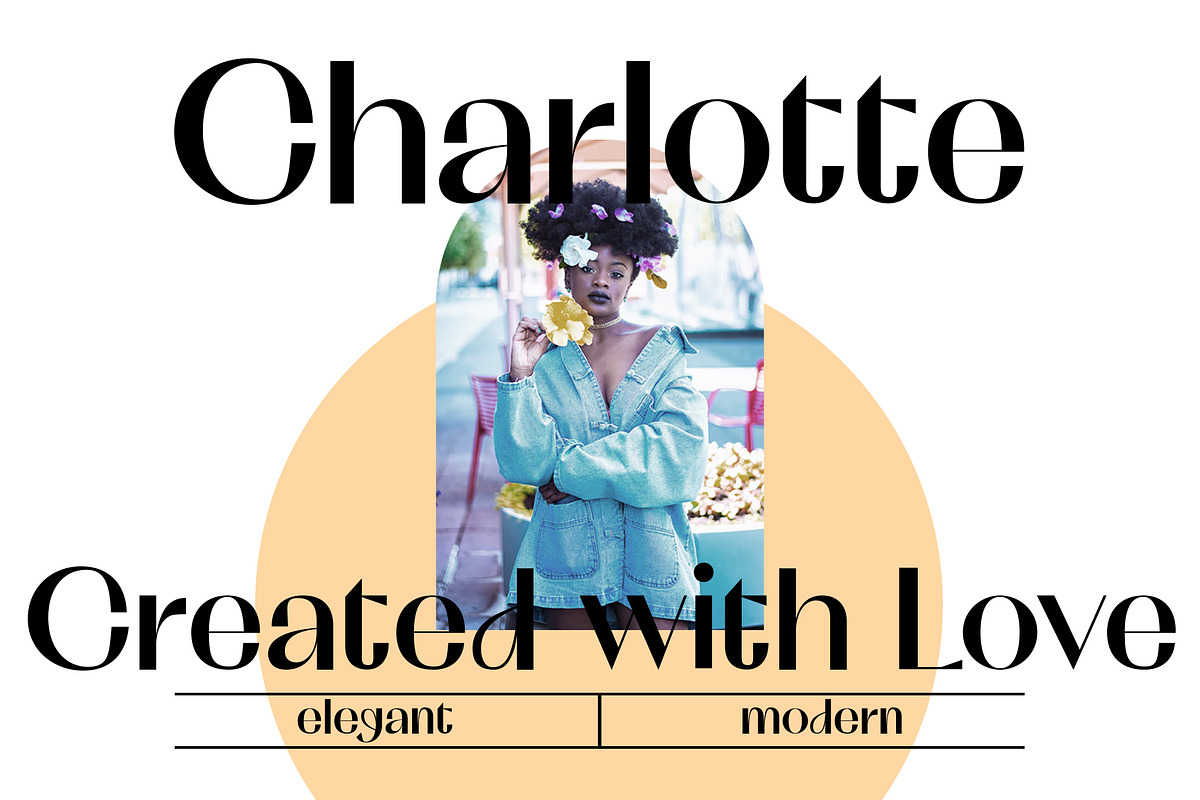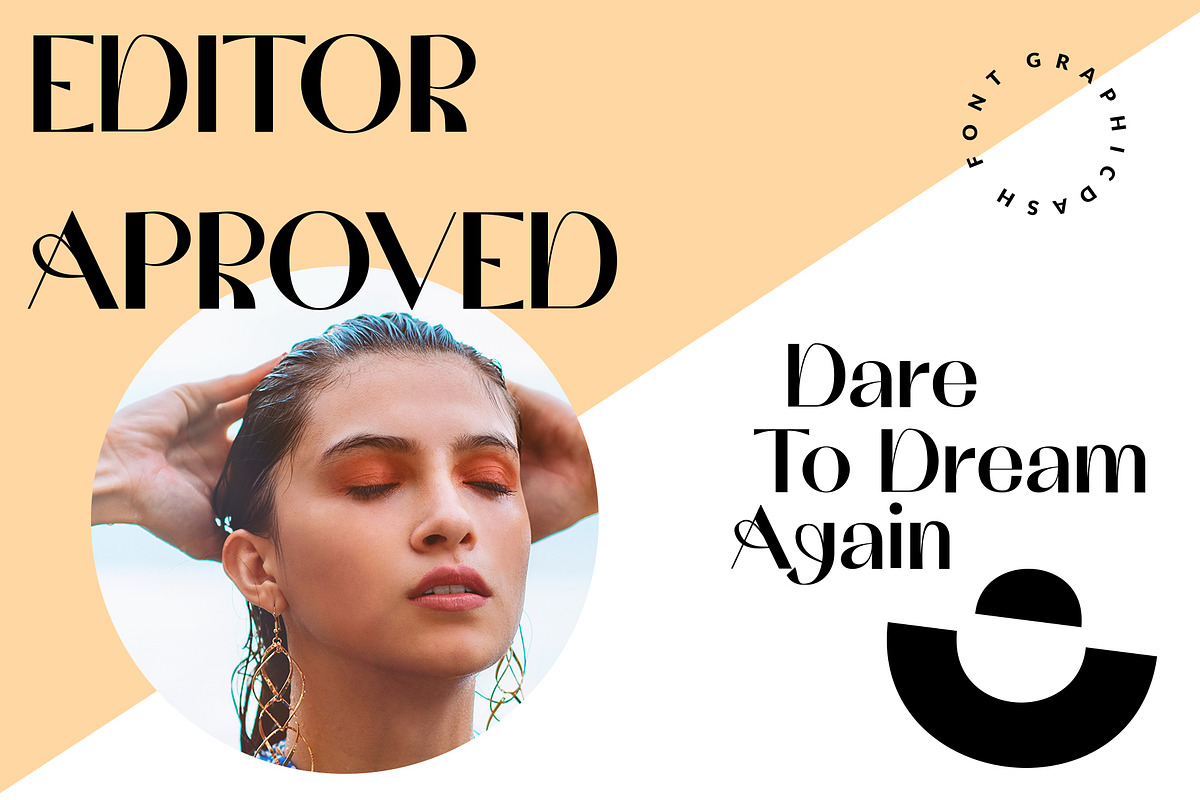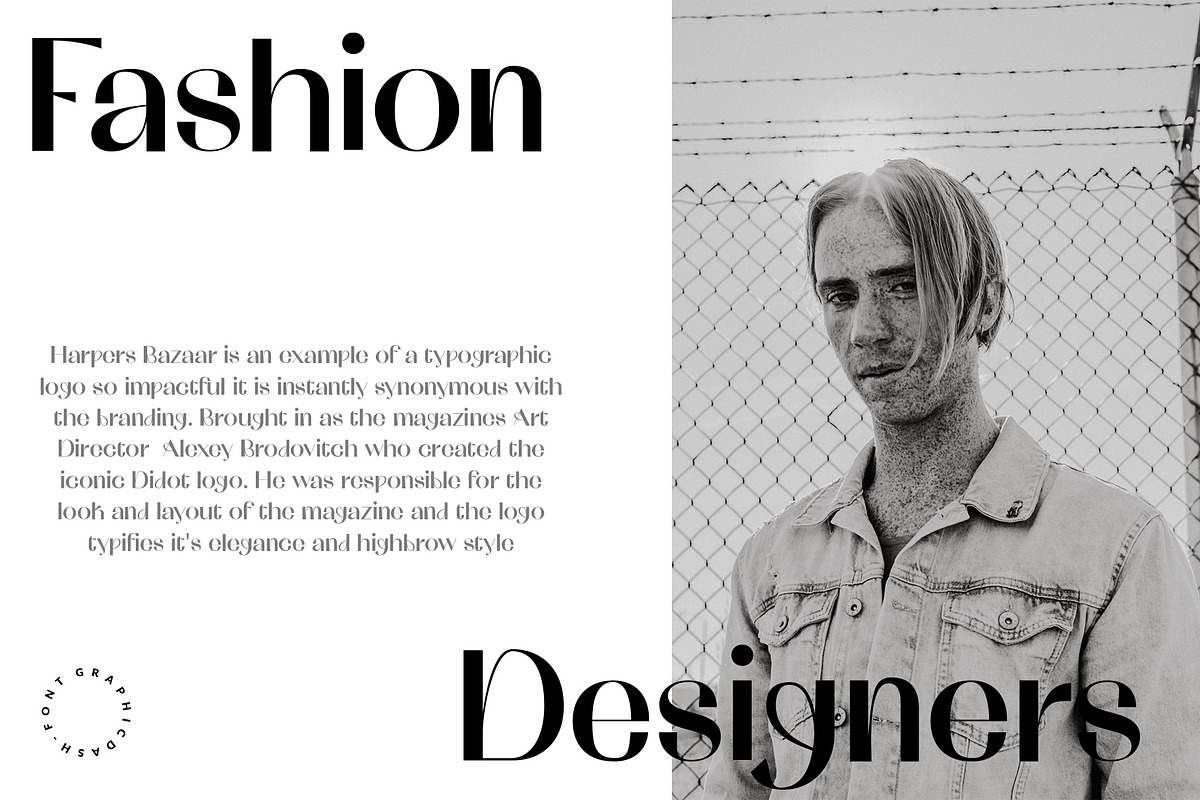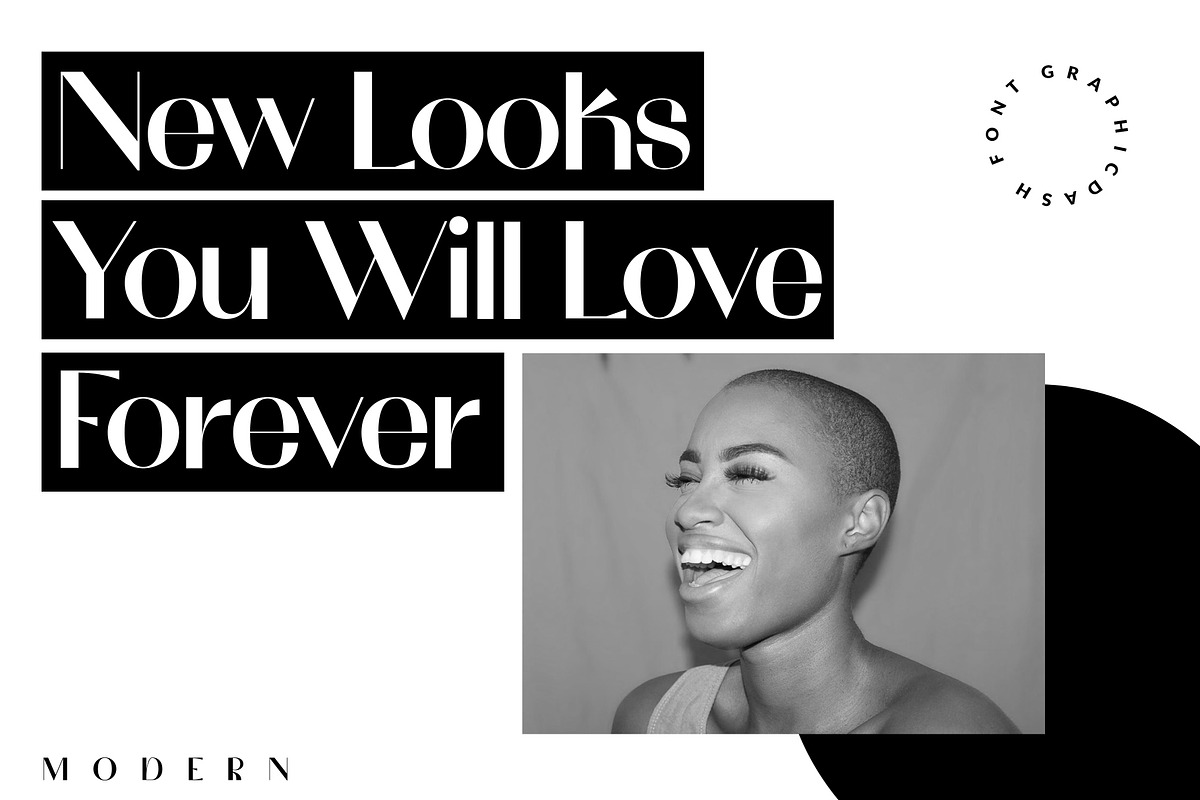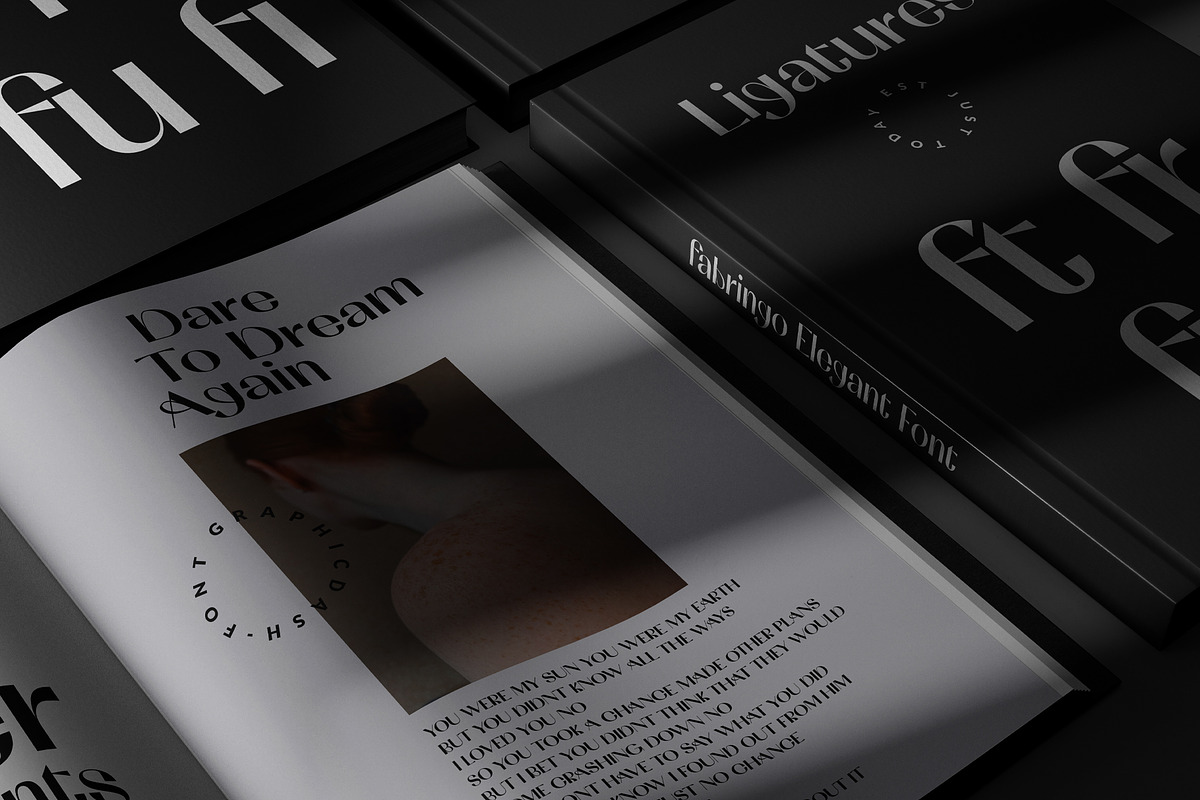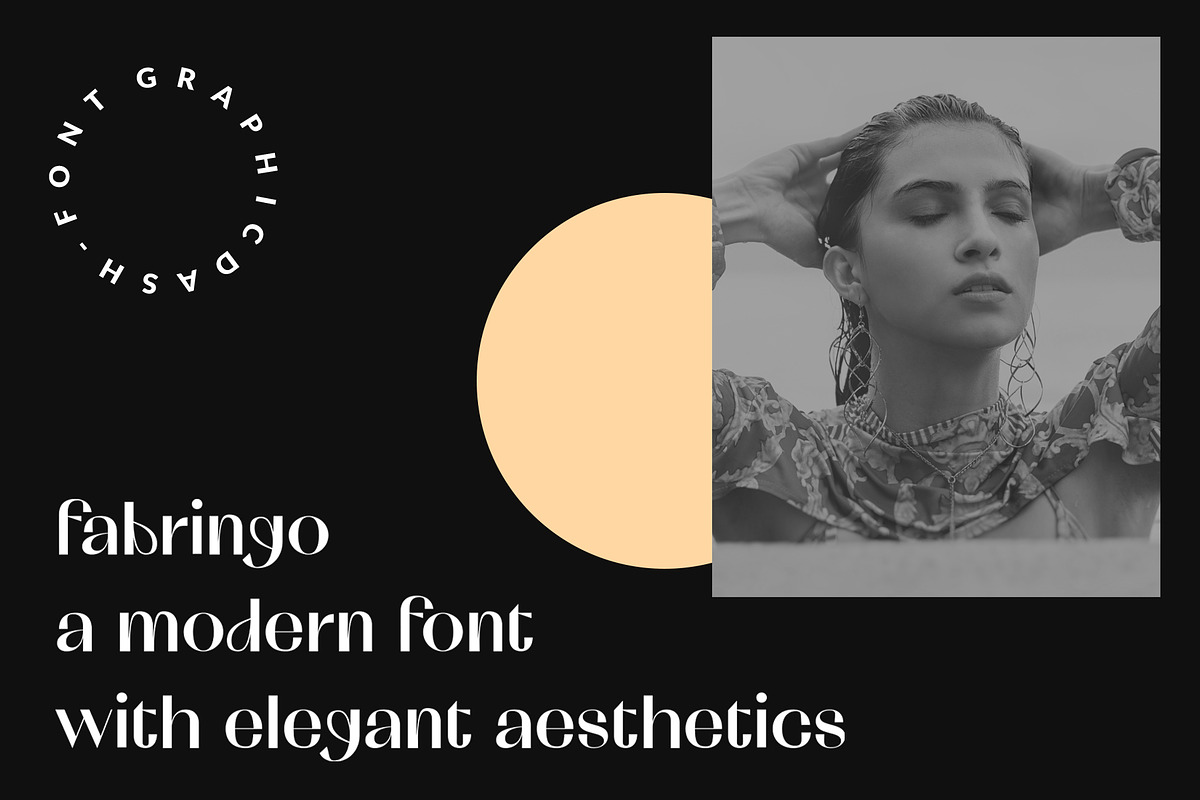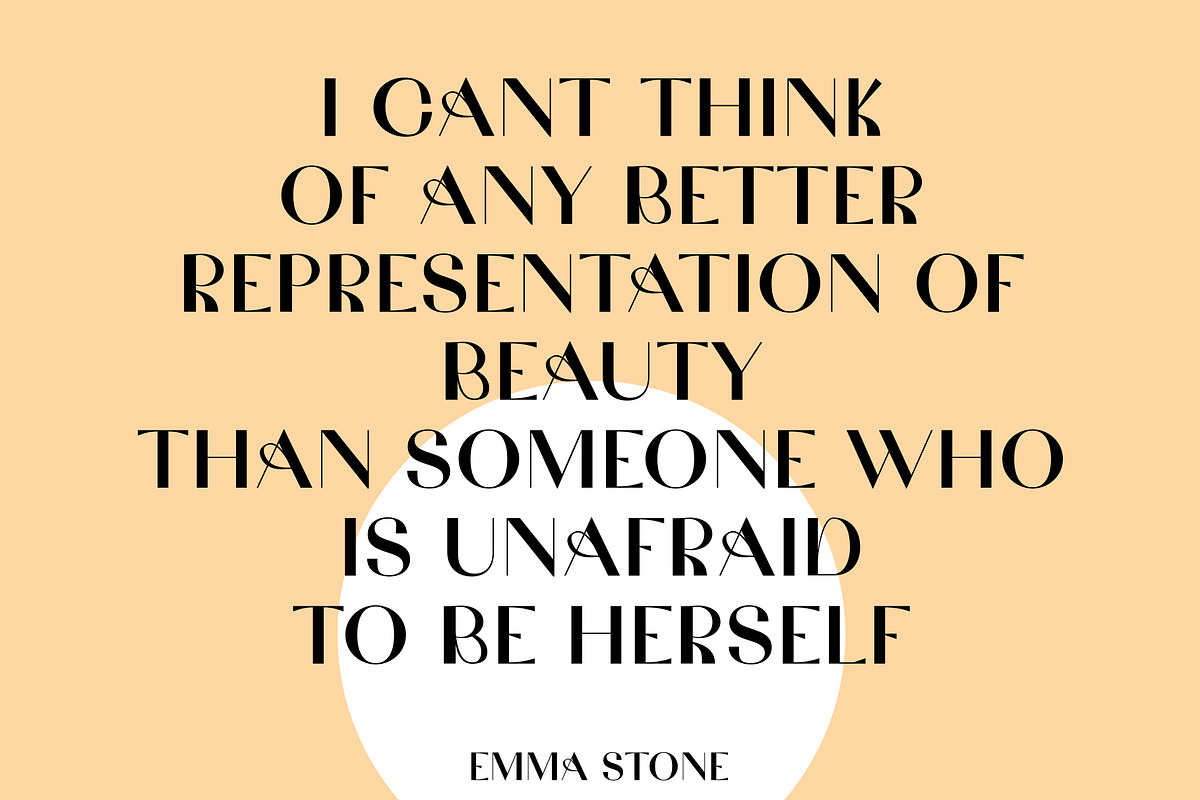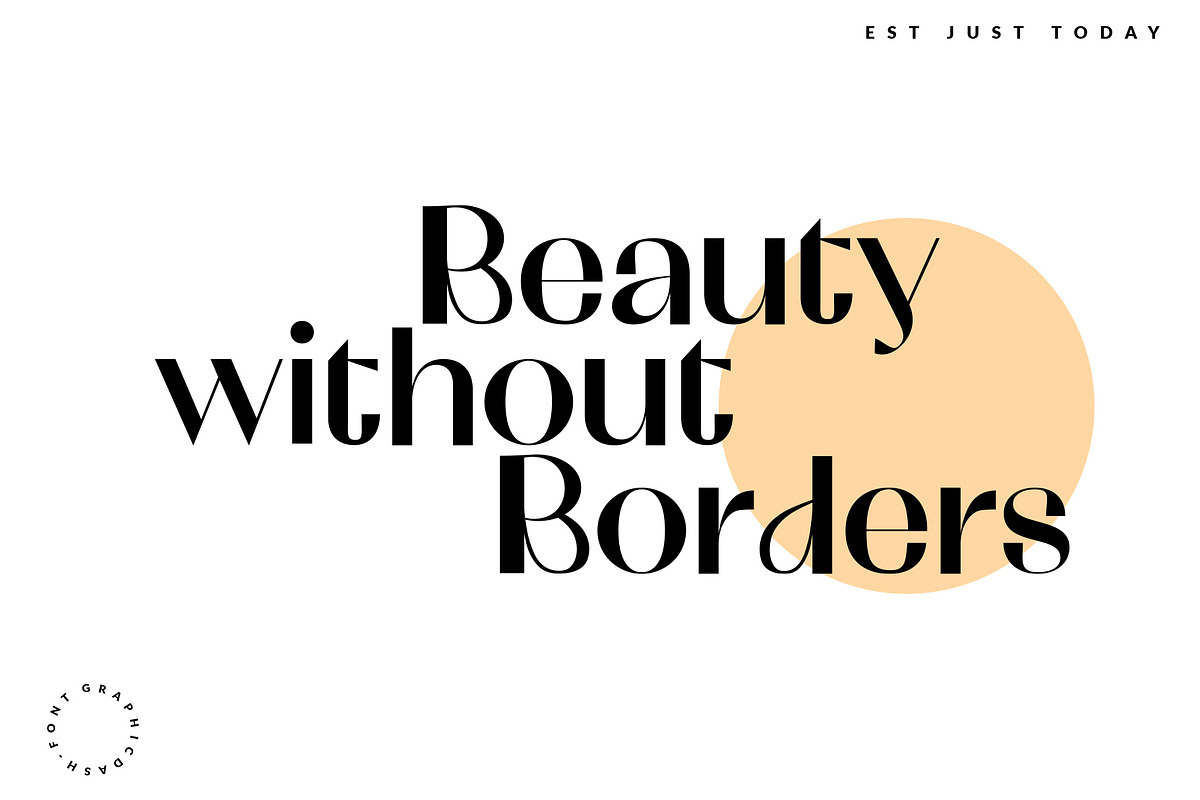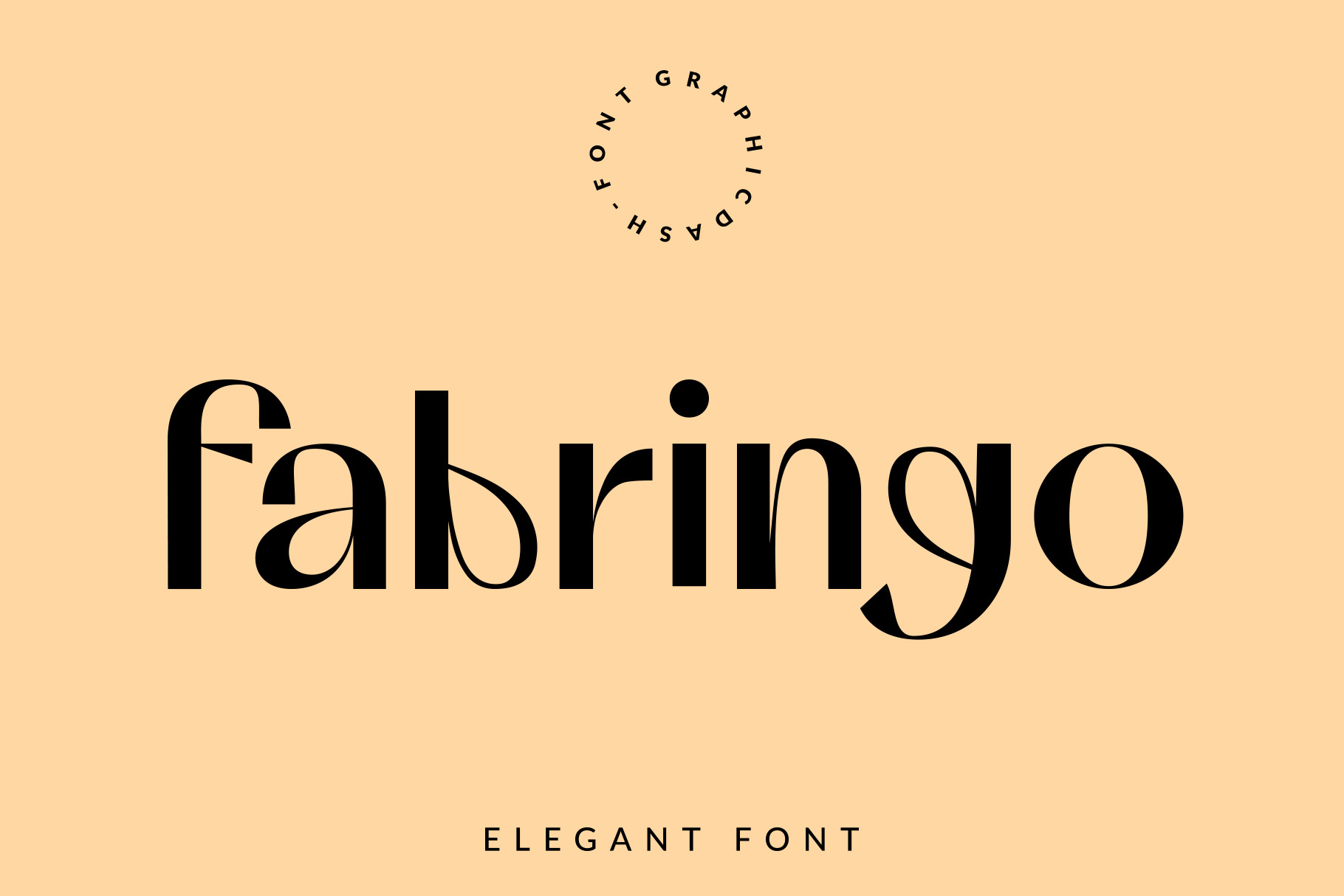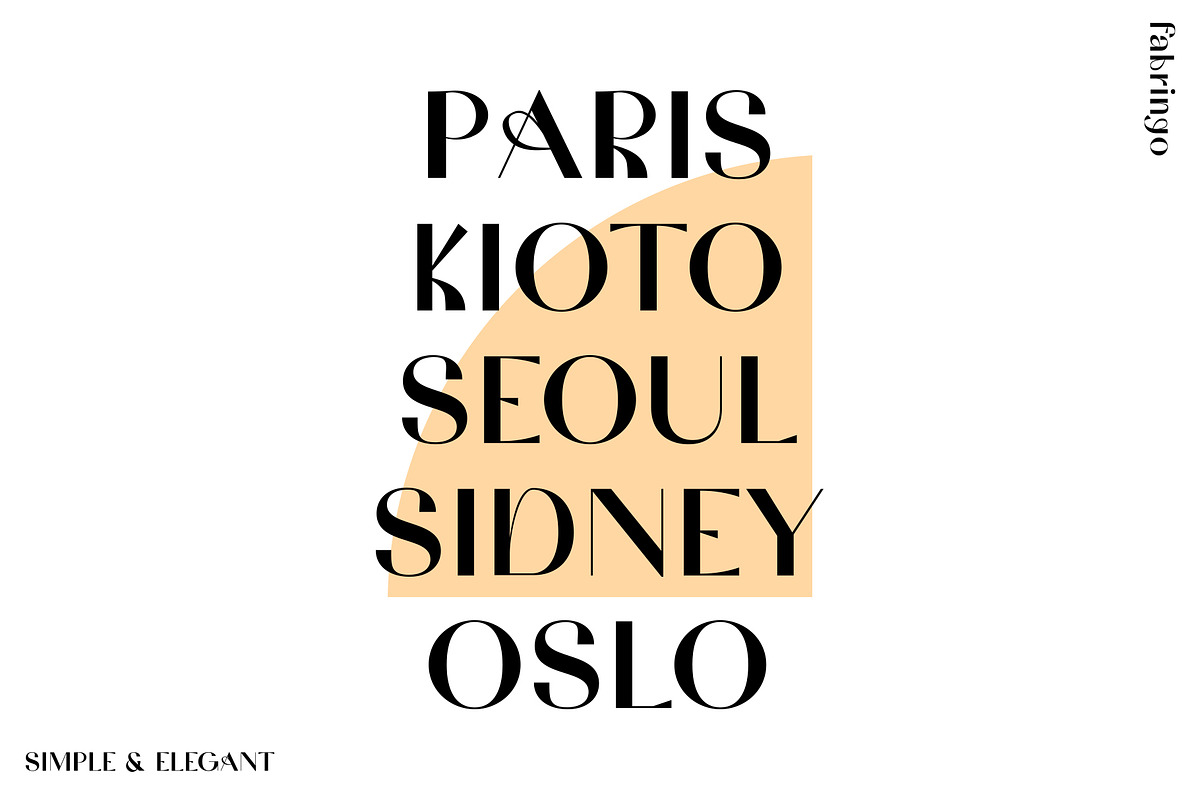
Fabringo - Elegant/Glamour Font
Fabringo is a Feminine, modern, and elegant font. It has a unique curvy style.
Create unique & beautiful logotype, use it as an elegant solution for your next magazine layout, or choose Fabringo for any graphics that require a sleek look with an Modern flair.